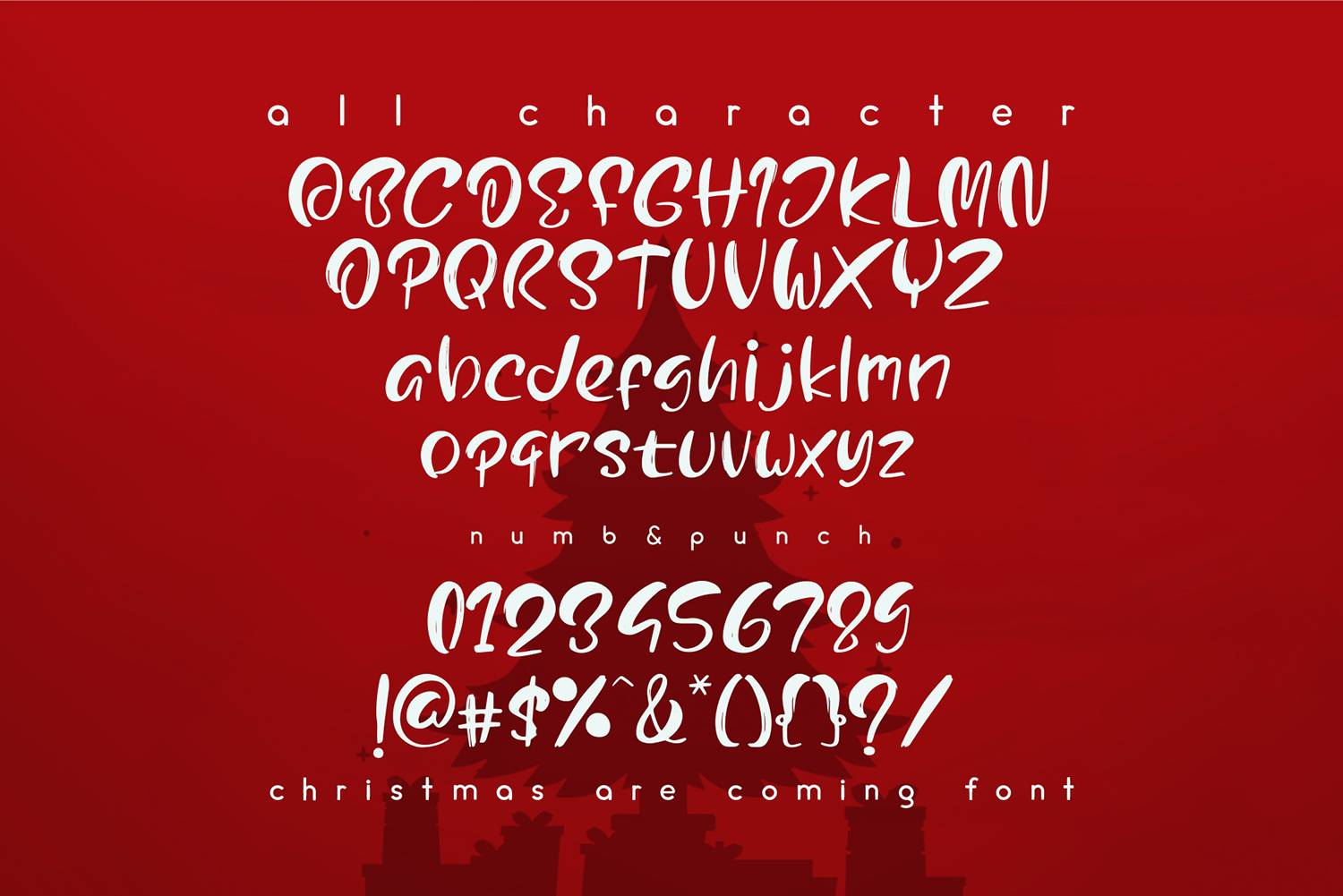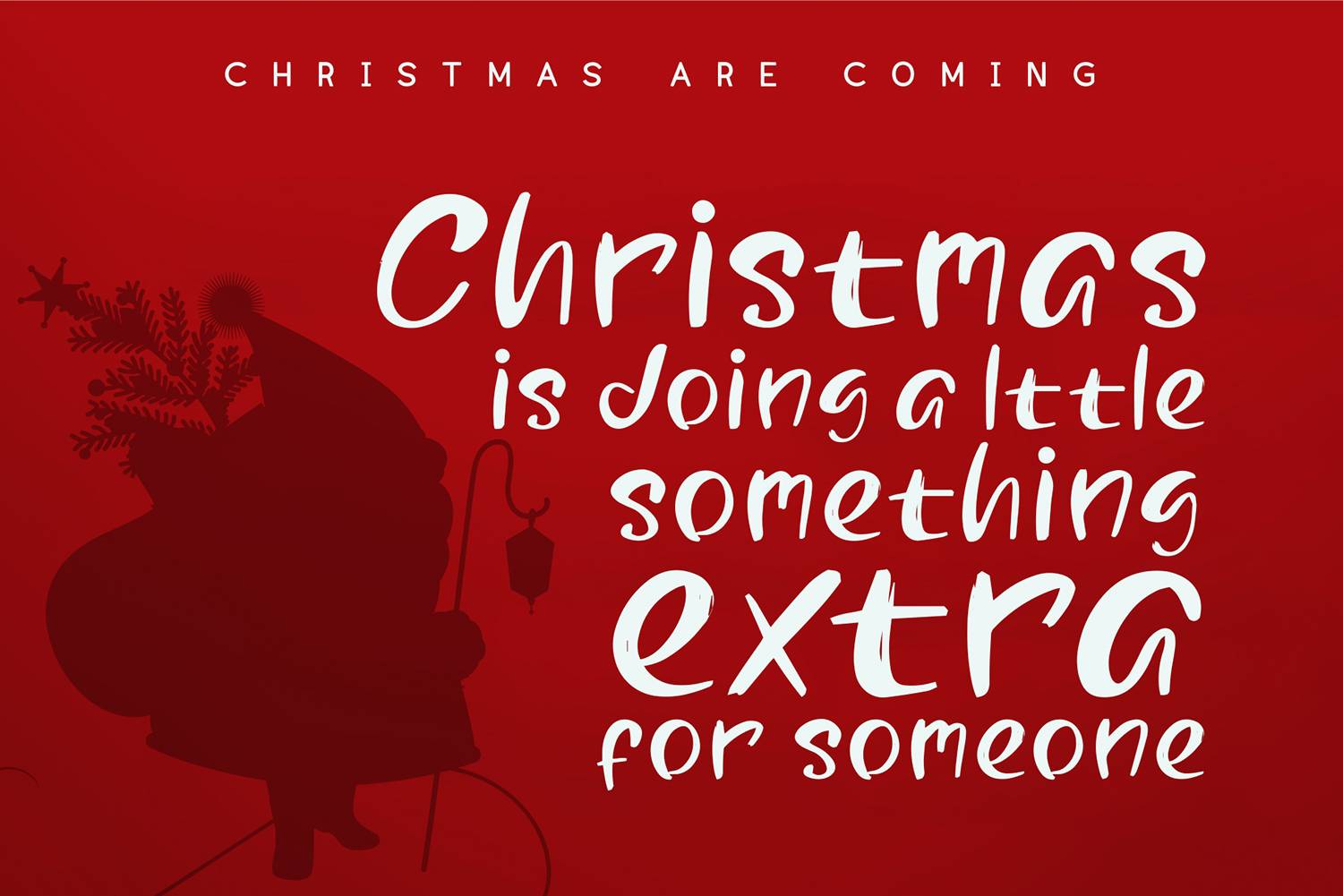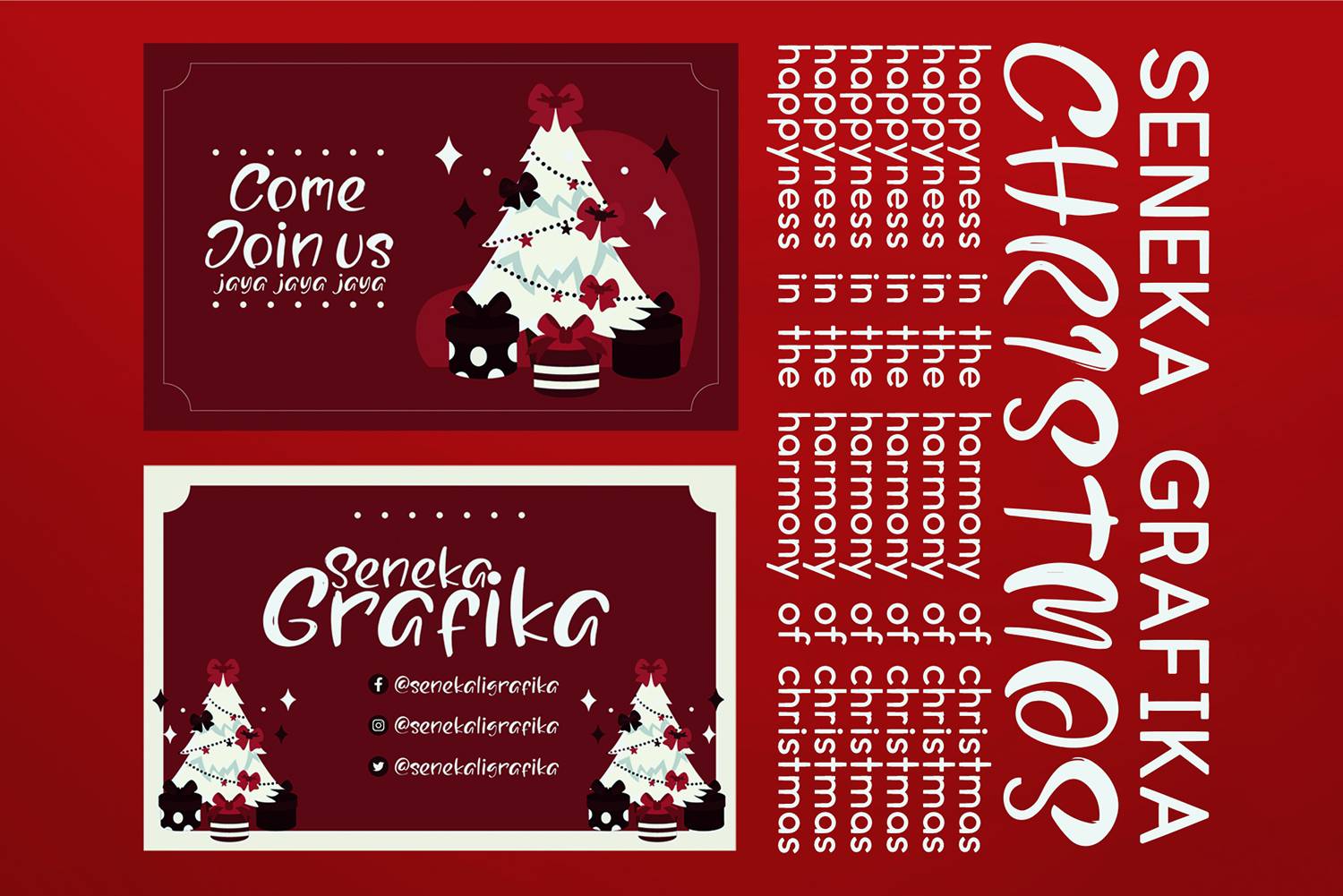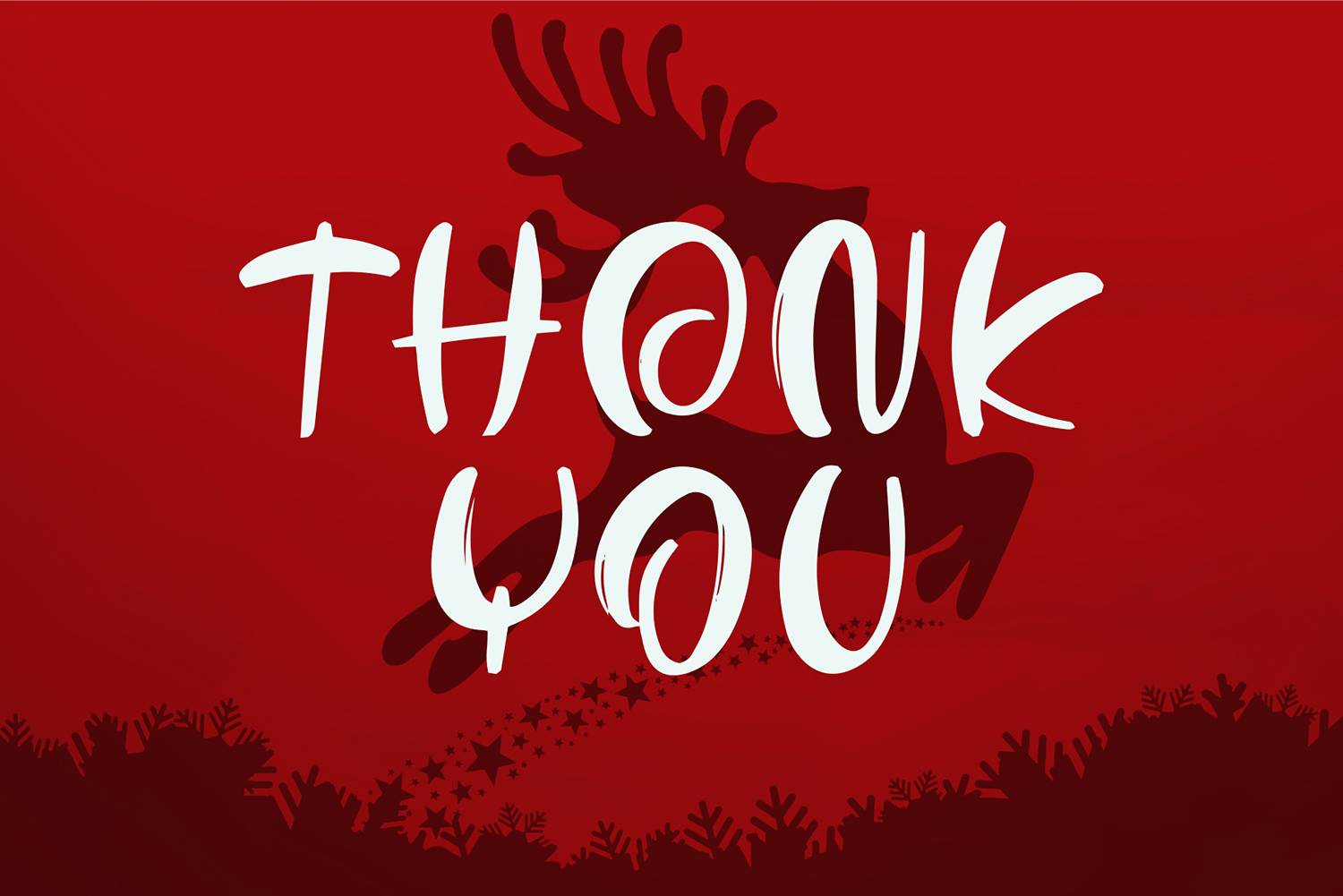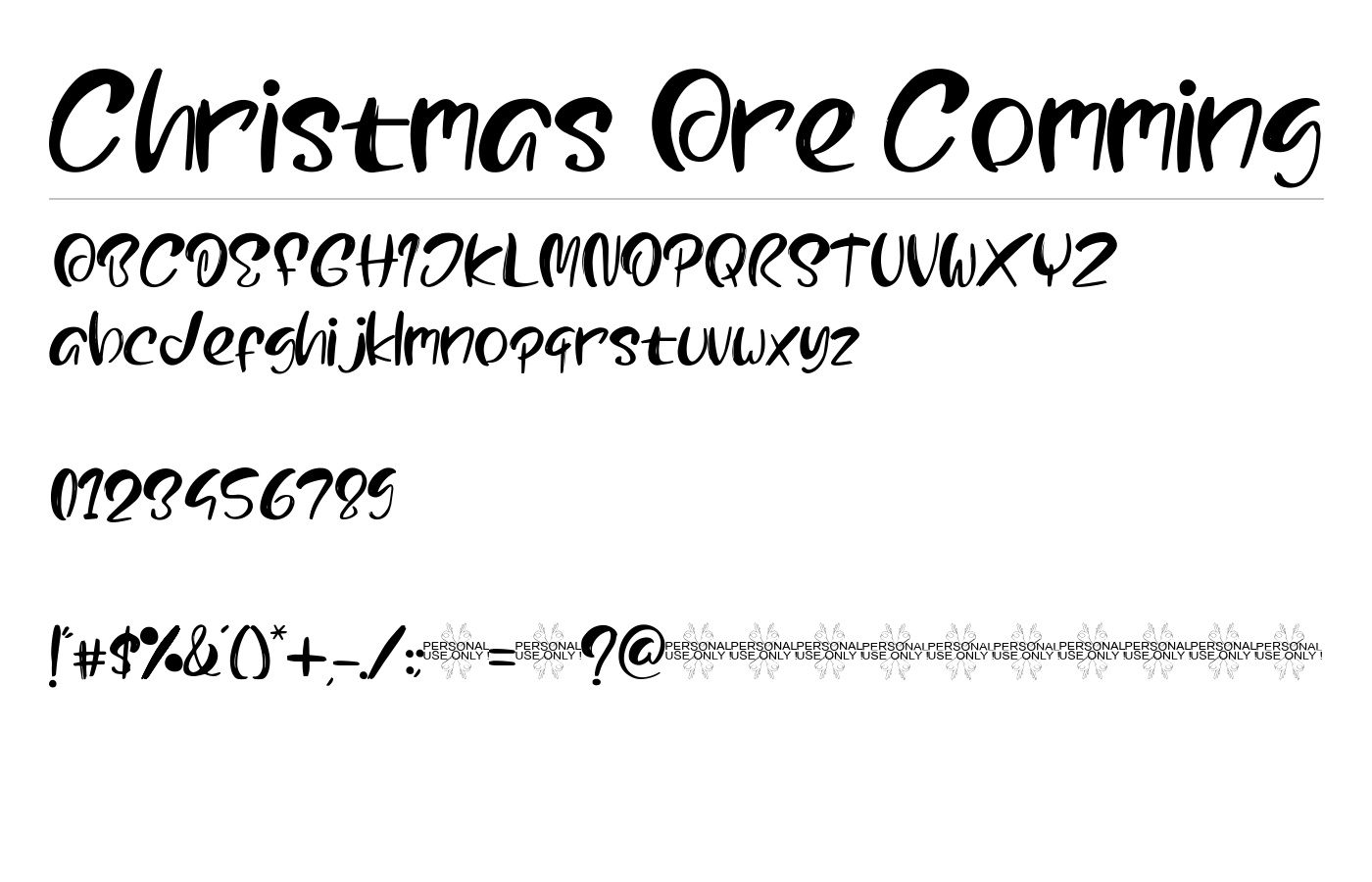
Christmas Are Coming is a playful and casual handwritten script font with a lively, informal feel. Its smooth, rounded strokes and slightly irregular shapes give it a warm, approachable personality, perfect for festive designs and creative projects. This font works well for holiday-themed invitations, greeting cards, and fun branding that aims to evoke cheer and friendliness.
Christmas Are Coming Font
About Christmas Are Coming Font
| Font family | Christmas Are Coming Font |
| Designer | Muhammad Helmi |
| Trademark | Seneka Grafika |